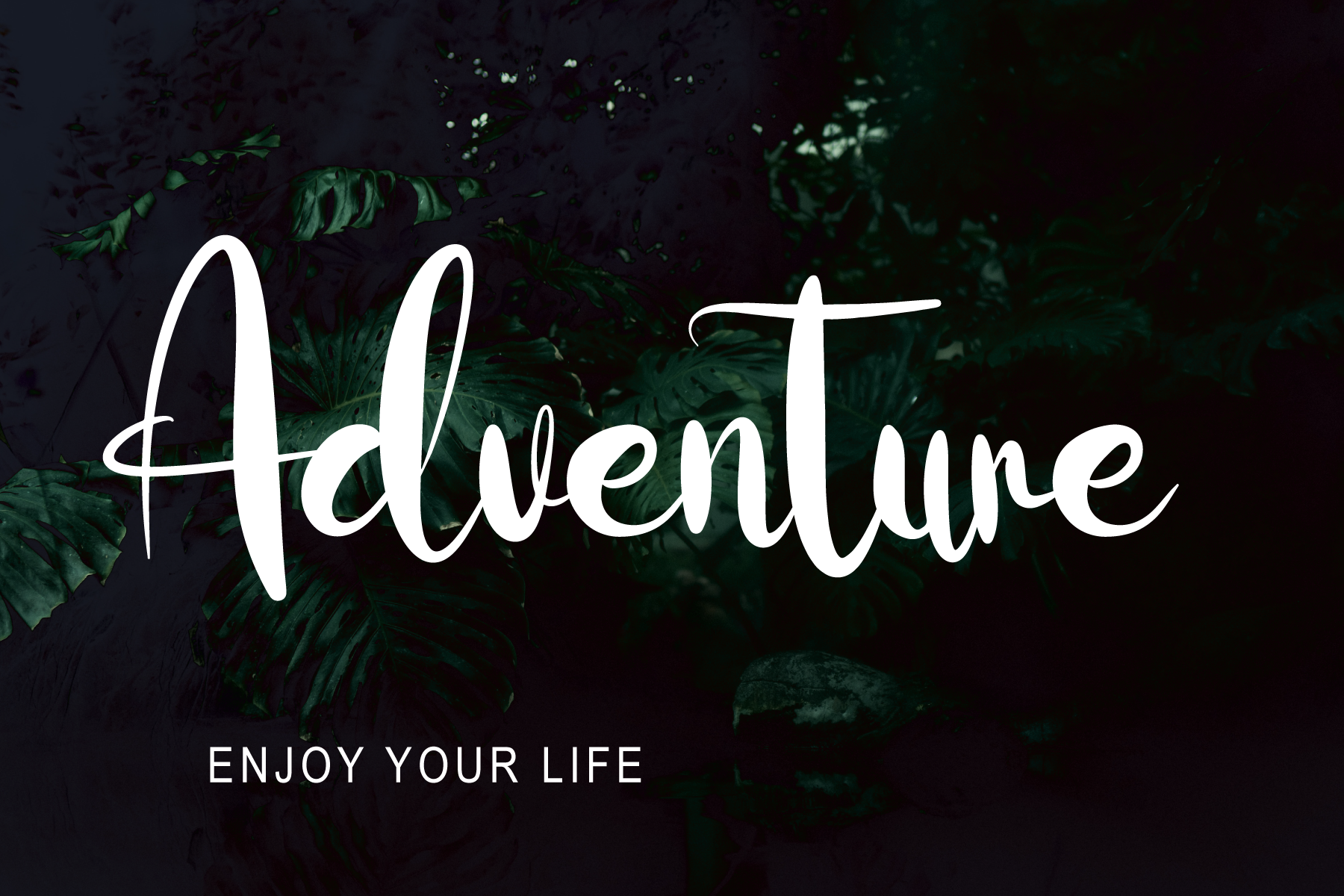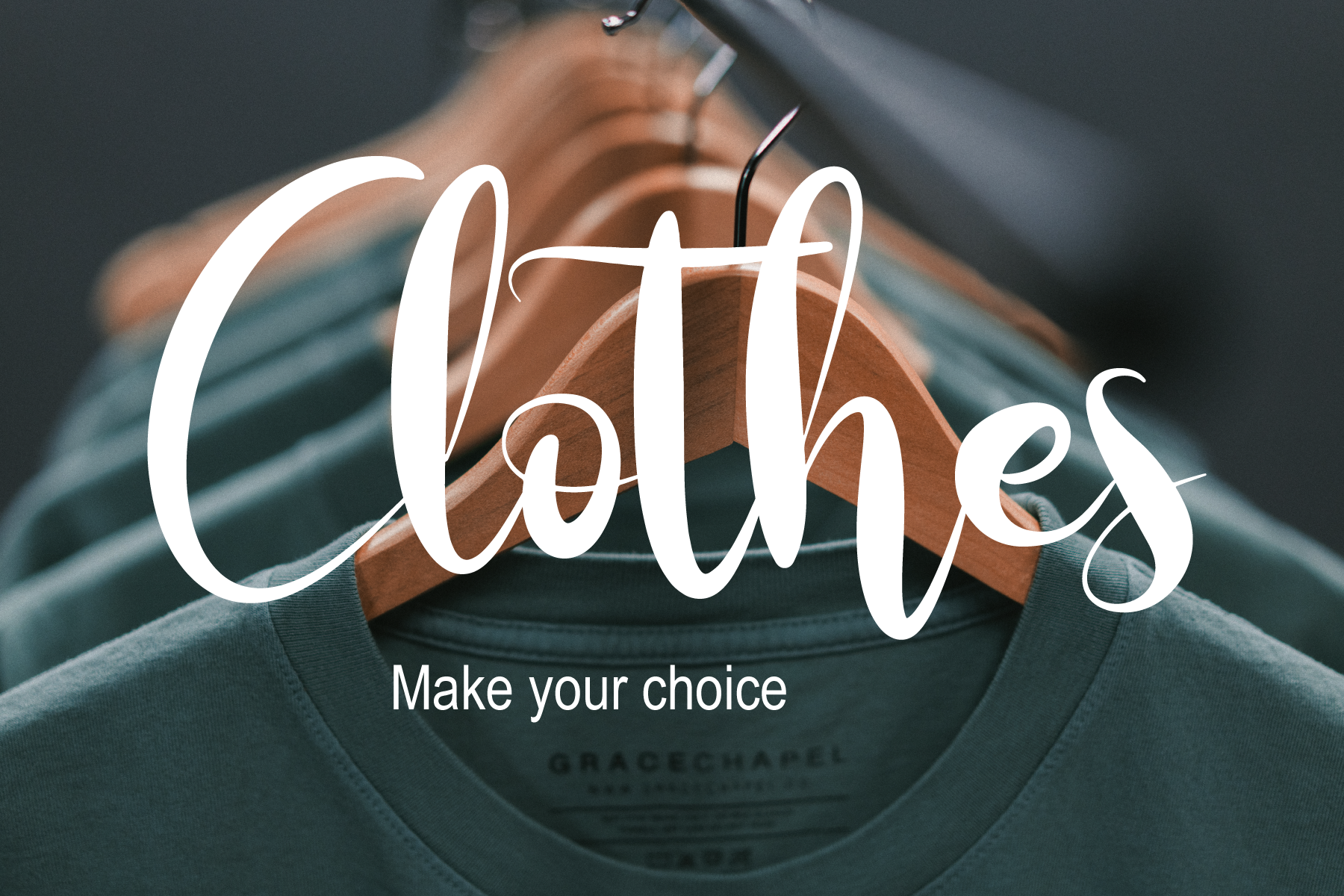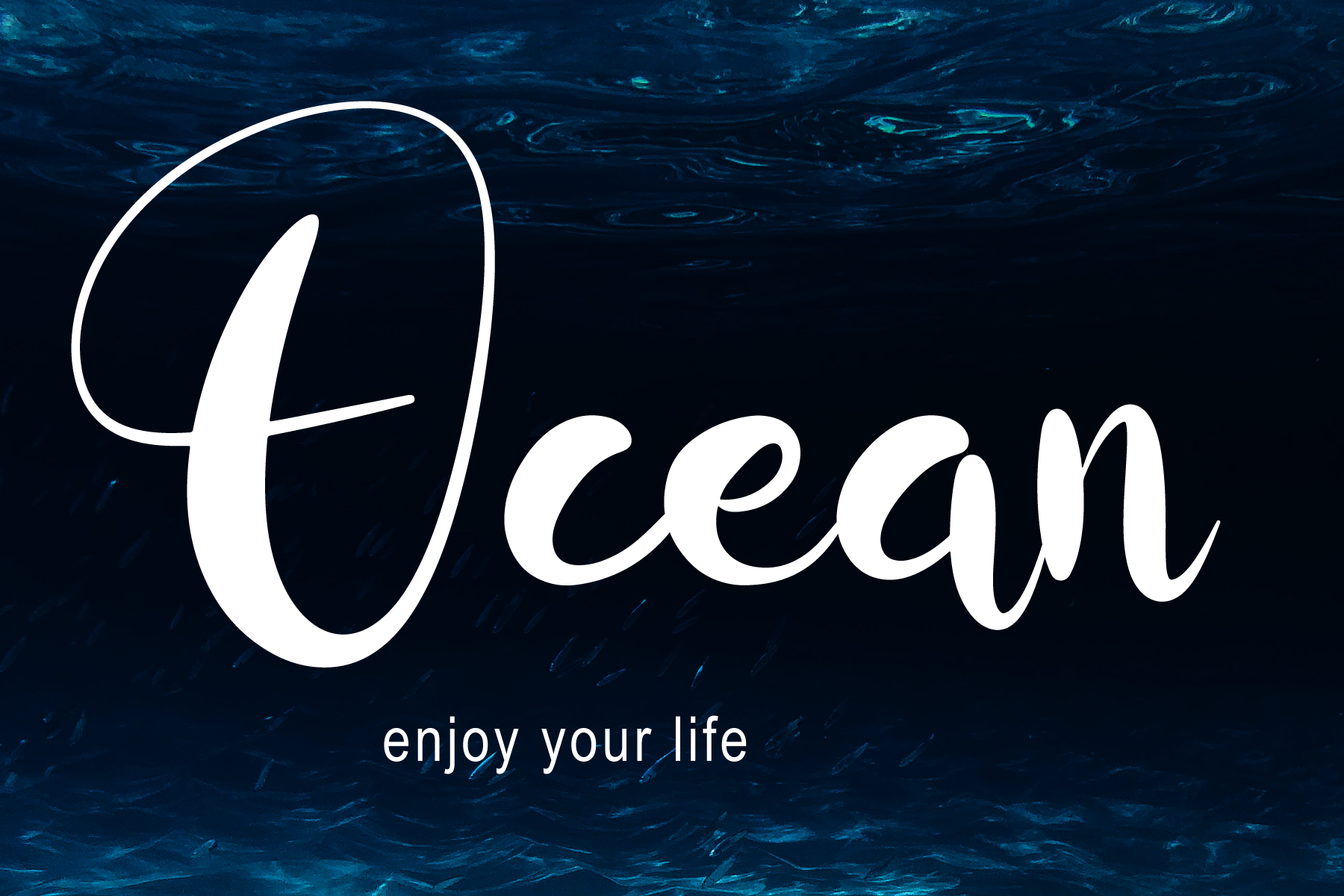
Why Dont Script Font
This is a brushed and elegant script font. It looks stunning on wedding invitations, thank you cards, quotes, greeting cards, logos, business cards and every other design which needs a handwritten touch.